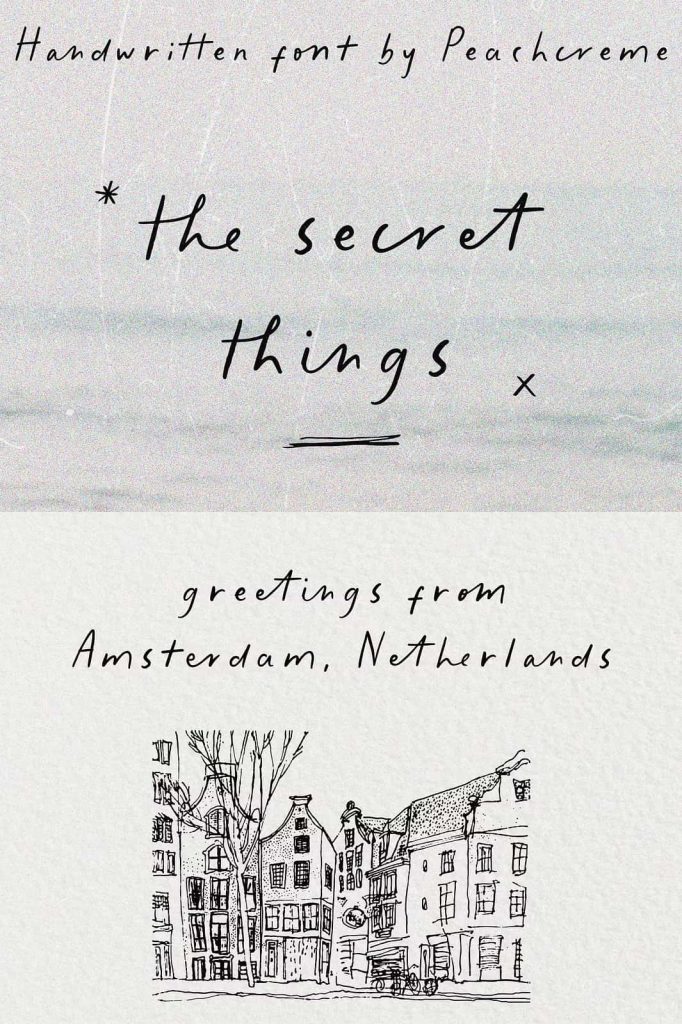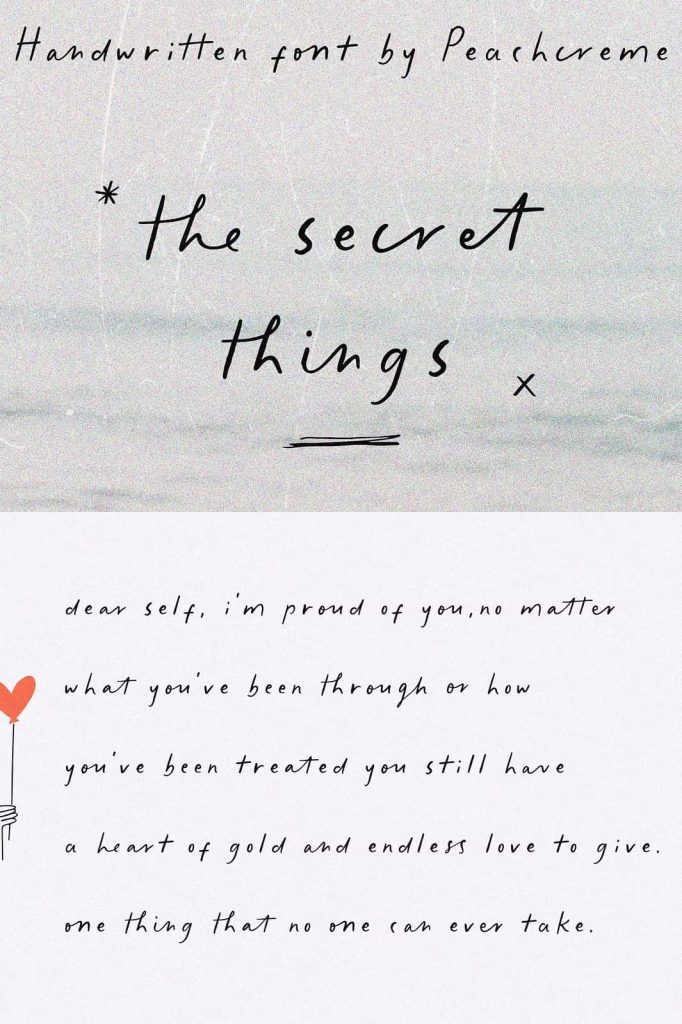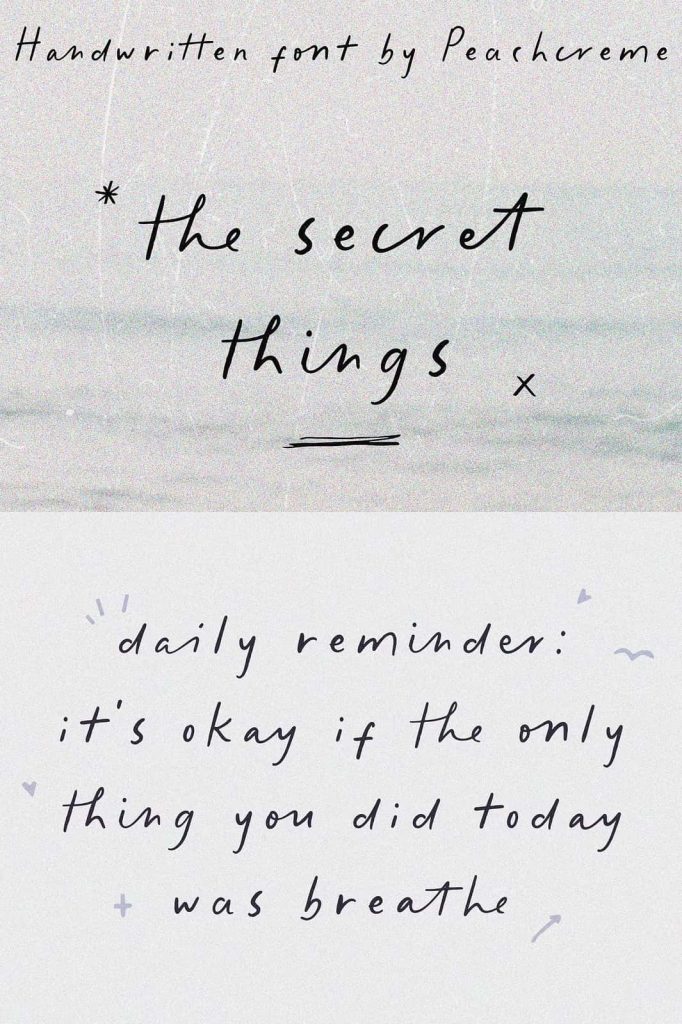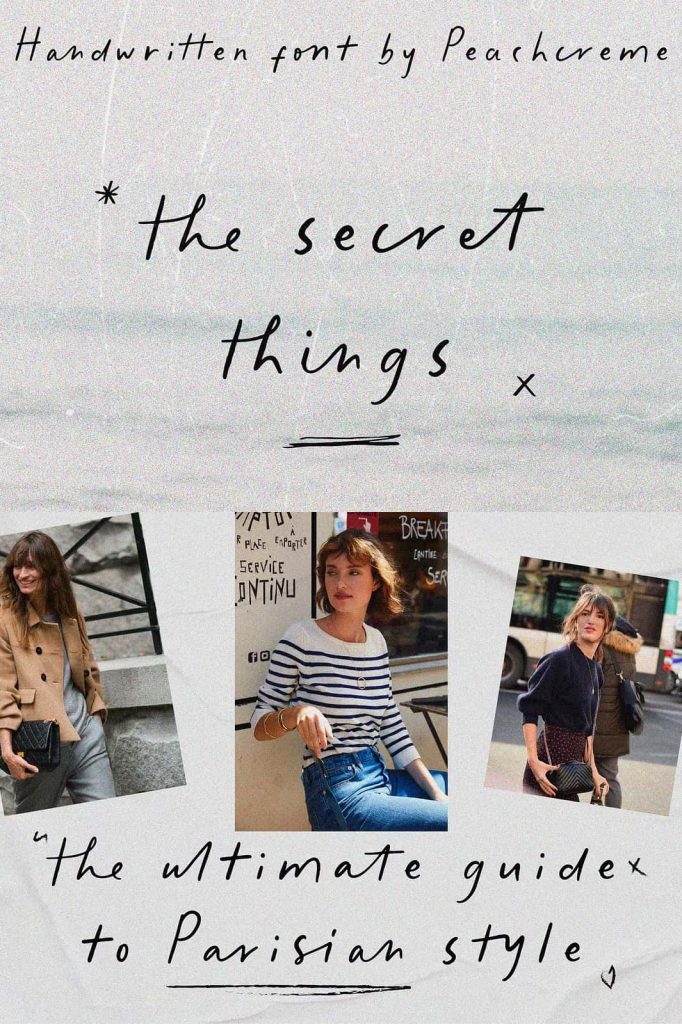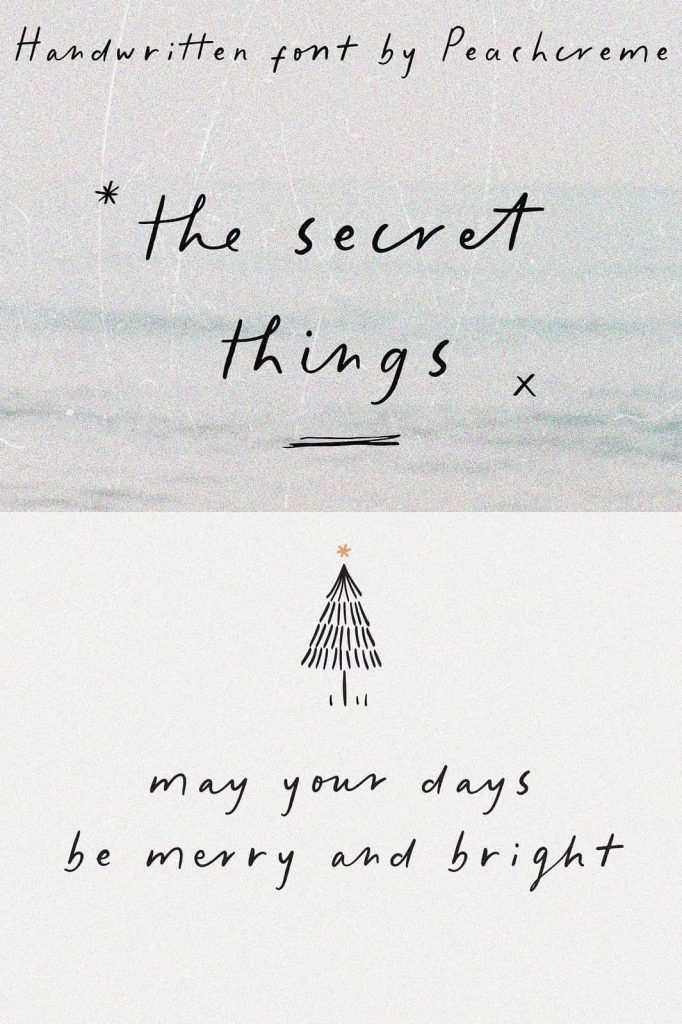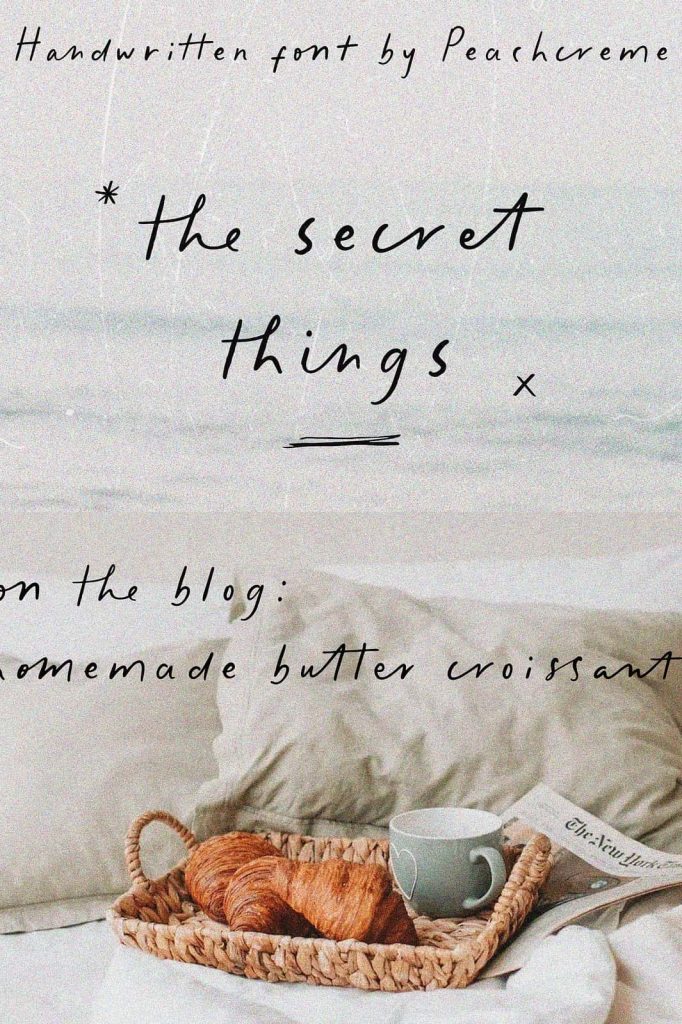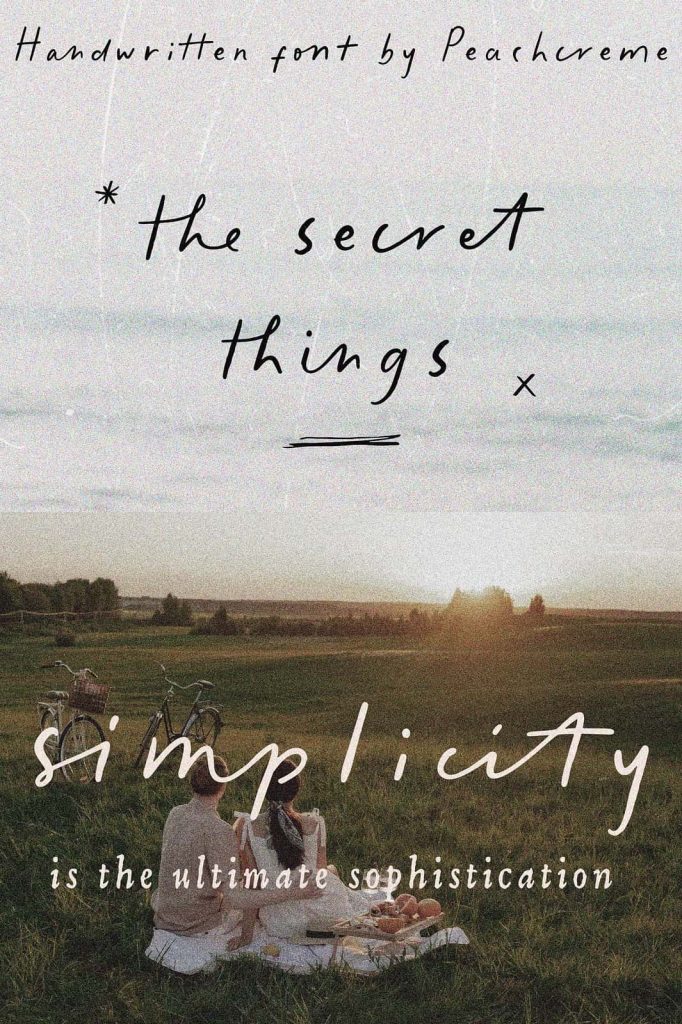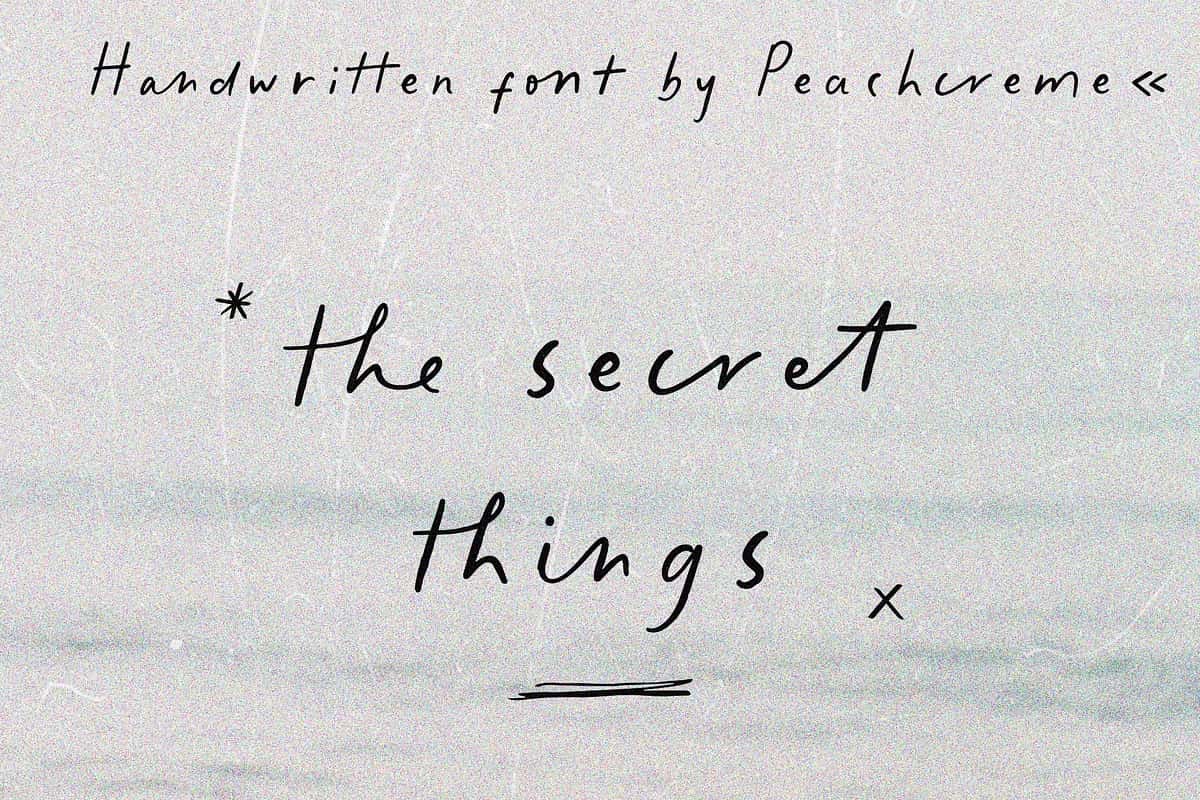
The Secret Things – A Natural Handwritten Script Font with Effortless Elegance
The Secret Things is a beautifully relaxed and natural handwritten script font designed to infuse your projects with organic charm and effortless sophistication. Every curve and connection was carefully crafted to emulate the flow of genuine handwriting—graceful, unpretentious, and full of personality. Perfect for designers who value authenticity and subtle emotion, The Secret Things adds a human touch to any creative work, making your designs feel truly personal and unique.
A Font That Captures Natural Handwriting
The Secret Things was created with one goal in mind: to bring the warmth and fluidity of real handwriting to digital design. Unlike rigid or mechanical script fonts, The Secret Things flows naturally, with slight variations that make each word feel fresh and alive. The smooth curves, gentle slants, and natural rhythm of the letters evoke the feeling of ink on paper, giving your text an approachable and elegant look. Whether used for short phrases or full paragraphs, this typeface adds charm and authenticity to every composition.
Designed for Relaxed and Unpretentious Style
True to its name, The Secret Things embodies simplicity and grace. Its relaxed, free-flowing lines make it perfect for projects that require an inviting, down-to-earth aesthetic. The organic shapes and balanced spacing give your typography a sense of ease—ideal for brands, artists, and creatives who want their designs to feel honest and human. Use it to express warmth, sincerity, and creativity without overpowering your message. The result is typography that feels handcrafted and effortlessly stylish.
45 Ligatures for Authentic Handwritten Realism
What sets The Secret Things apart is its collection of 45 unique ligatures, meticulously designed to replicate natural handwriting connections. These ligatures automatically adjust letter pairings, creating a smooth, seamless flow between characters. The result is a look that’s indistinguishable from genuine handwriting—dynamic, expressive, and full of life. Whether you’re designing a quote, logo, or invitation, these ligatures bring subtle detail and realism to every line of text, making your designs feel truly handcrafted.
Perfect for a Variety of Creative Projects
The Secret Things is versatile enough to enhance a wide range of design styles. Its organic curves and soft strokes make it ideal for branding, wedding invitations, greeting cards, logos, packaging, social media posts, and editorial layouts. It adapts beautifully to both minimal and decorative compositions, providing a sophisticated yet approachable visual tone. Whether you’re building a luxury brand or crafting a heartfelt message, this font offers the flexibility and character you need to communicate your vision effectively.
Bring Personality and Warmth to Your Typography
Every design tells a story, and The Secret Things helps you tell it with emotion and authenticity. Its subtle imperfections give it soul, making your words feel alive and personal. This font’s natural rhythm and smooth flow make it easy to read while maintaining visual interest. It’s perfect for designers who want to bridge the gap between handmade artistry and modern design precision. The Secret Things brings an effortless balance between expressiveness and professionalism.
Optimized for Modern Use and Easy Integration
Why Choose The Secret Things Script Font?
Choosing The Secret Things means choosing elegance, authenticity, and emotional depth. It’s not just a typeface—it’s a design tool that helps you express personality through every curve and connection. From branding and packaging to social media content and invitations, this natural handwritten script font brings creativity and emotion to your work. The built-in ligatures and fluid strokes ensure that your designs look handcrafted, memorable, and full of warmth.
Let your typography speak with genuine charm and artistry through The Secret Things—a relaxed, organic, and beautifully natural handwritten script font designed to make every project feel personal, polished, and unforgettable.